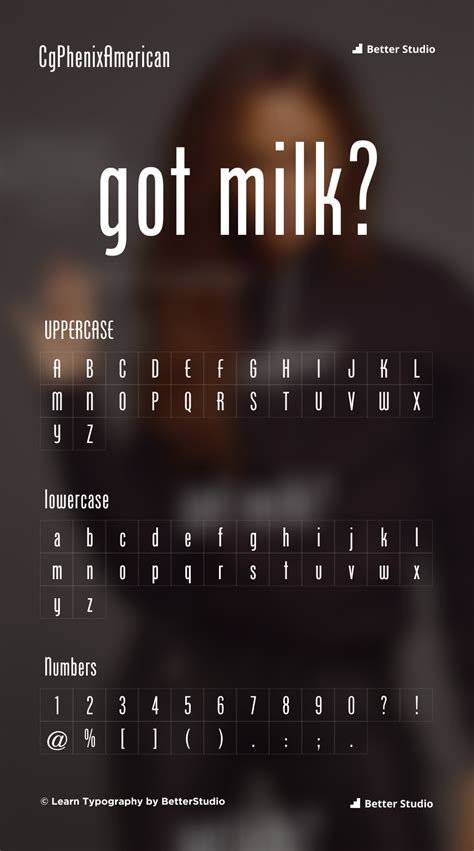
Simply generate and share with your friends Web got milk font. Is basically an american advertising campaign introduce since 1993. Web generate cool and amazing fonts by using got milk font generator. Simply generate and share with your friends. Generate cool and amazing fonts by using got milk font generator.
Simply generate and share with your friends Is basically an american advertising campaign introduce since 1993. Simply generate and share with your friends. Web got milk font. Generate cool and amazing fonts by using got milk font generator. Web generate cool and amazing fonts by using got milk font generator. Simply generate and share with your friends